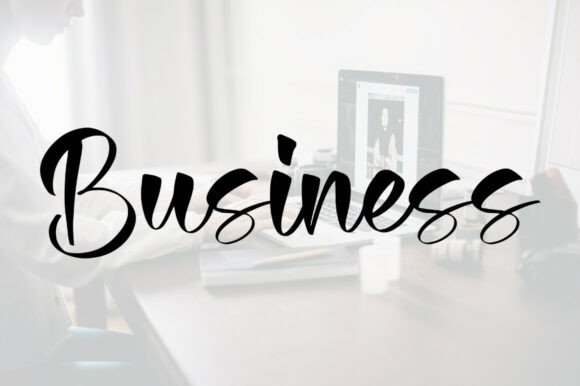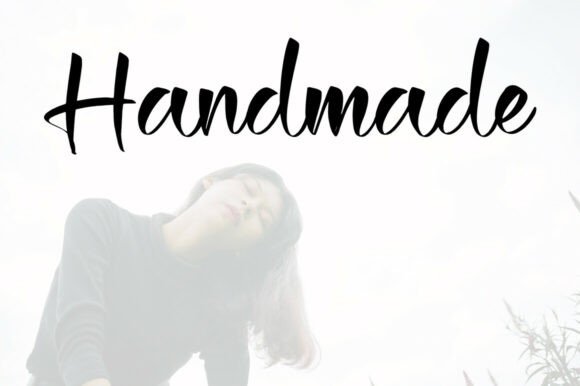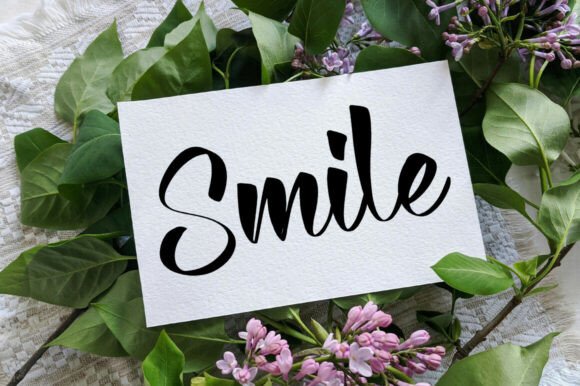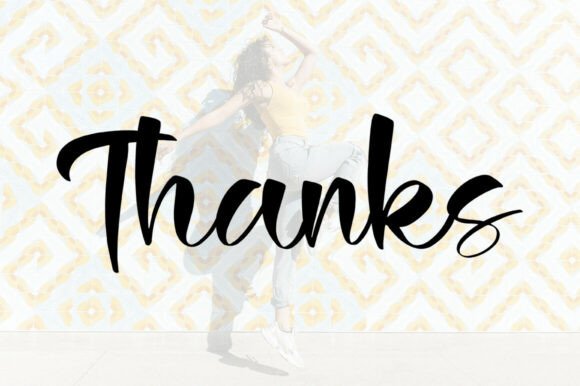
Introducing Costume Font: The Elegant and Charming Handwritten Font
Are you looking for a font that adds a touch of elegance and charm to your designs? Look no further than Costume Font! This beautiful handwritten font is perfect for a variety of design projects, from wedding invitations and greeting cards to logos and business cards.
What Makes Costume Font So Special?
Costume Font is a unique and stylish font that is sure to make your designs stand out. Its elegant and charming feel makes it perfect for adding a personal touch to any project. Whether you’re designing a wedding invitation, a thank you card, or a logo, Costume Font is the perfect choice.
Uses for Costume Font
Costume Font is a versatile font that can be used for a wide range of design projects, including:
• Wedding Invitations: Add a touch of elegance and sophistication to your wedding invitations with Costume Font.
• Thank You Cards: Express your gratitude in style with Costume Font.
• Quotes: Add a personal touch to your quotes and sayings with Costume Font.
• Greeting Cards: Make your greeting cards stand out with the charming and elegant feel of Costume Font.
• Logos: Add a personal touch to your logos and branding with Costume Font.
• Business Cards: Make a great impression with Costume Font on your business cards.
Why Designers and Crafters Love Costume Font
Designers and crafters love Costume Font for its unique and stylish feel. It’s the perfect font for adding a personal touch to any project. Here are just a few reasons why:
• Elegant and Charming: Costume Font has an elegant and charming feel that’s perfect for a wide range of design projects.
• Handwritten Touch: Costume Font has a beautiful handwritten touch that’s perfect for adding a personal feel to your designs.
• Versatile: Costume Font can be used for a wide range of design projects, from wedding invitations to logos.
Tips for Using Costume Font
Here are a few tips for using Costume Font in your designs:
• Pair with Other Fonts: Pair Costume Font with other fonts to create a unique and stylish look.
• Experiment with Colors: Experiment with different colors to find the perfect look for your design.
• Use for Headlines and Body Text: Use Costume Font for headlines and body text to create a cohesive look.
Costume Font is a beautiful and elegant handwritten font that’s perfect for a wide range of design projects. Its charming and elegant feel makes it perfect for adding a personal touch to any design. Whether you’re a designer or crafter, Costume Font is a great choice for your next project.